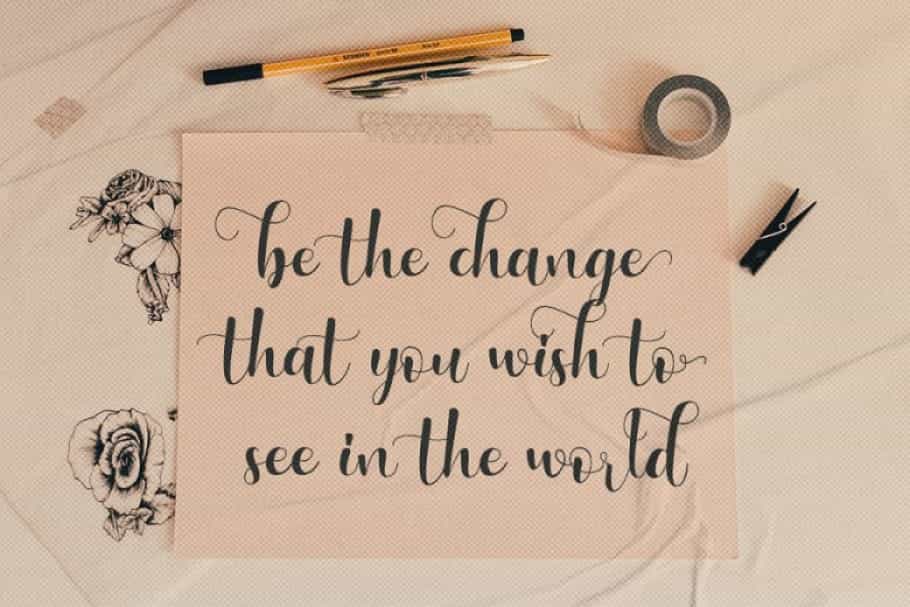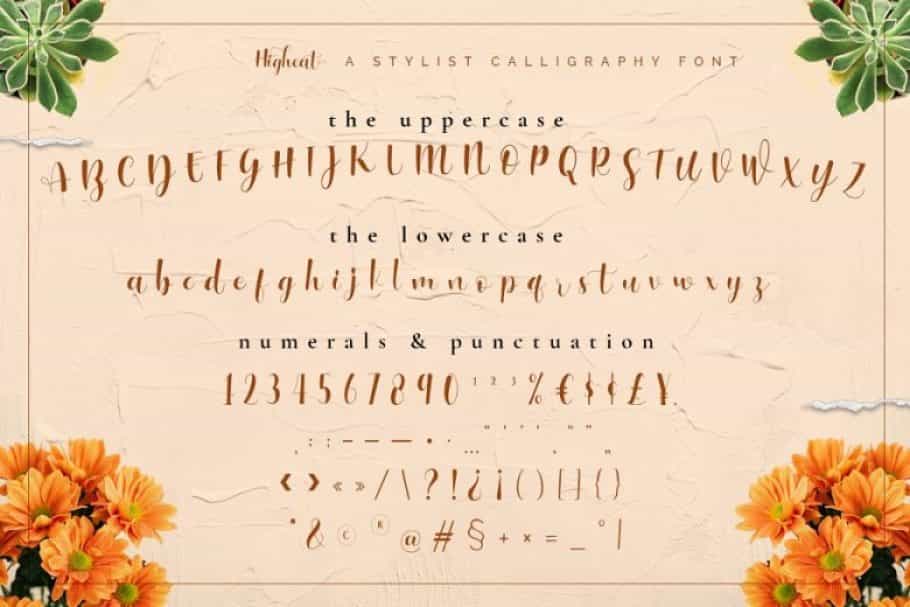
Discover Higheat Stylish Calligraphy Font, part of the Calligraphy Script collection—a versatile and unique font perfect for adding a personal touch to your projects. Download it for free and enjoy crafting designs with style, from invitations to social media posts. This font is available exclusively for personal use, giving you the freedom to create without limits. Unlock your creativity with Higheat Stylish Calligraphy Font today!
Higheat calligraphy script font is perfect to be used together with tails alternative characters. The High Stylish Calligraphy Scripts are the modern ones that give the user the ability to create beautiful and elegant texts in a matter of minutes and in the style of handwritten tattoos.